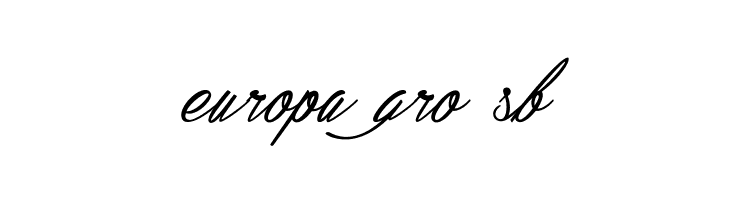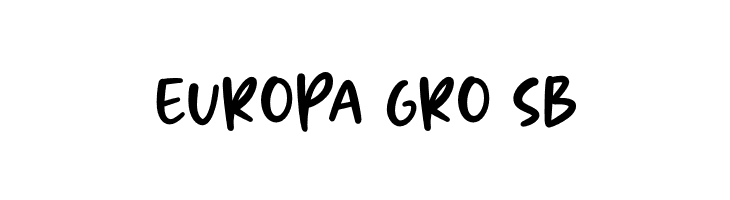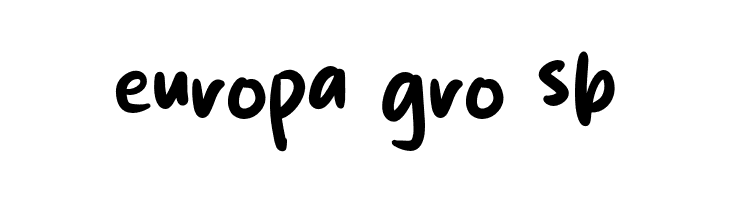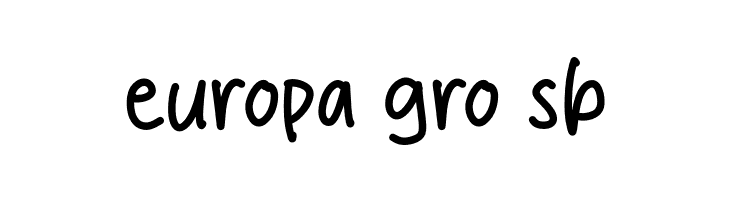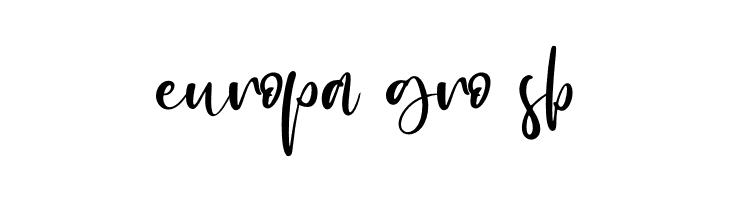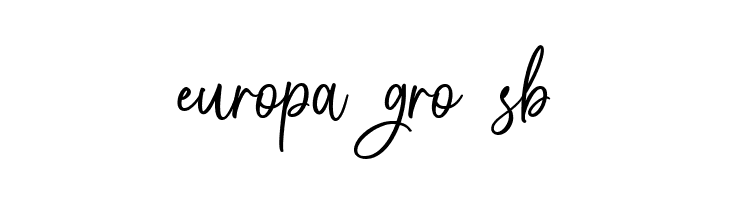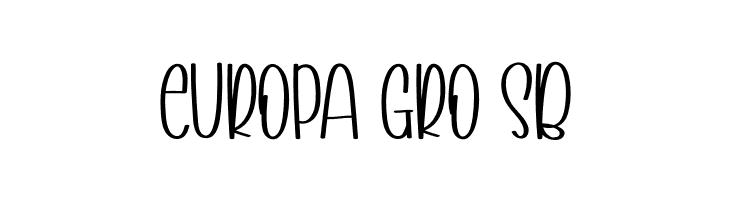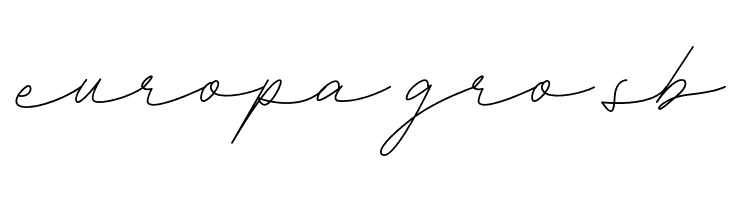
Elegant, connected script font with a handwritten, calligraphic style.
Casual handwritten font with rounded, playful strokes.
Casual handwritten script with tall, flowing strokes and variable thickness.
Elegant, thin, and highly slanted handwritten script.
Loose, playful handwritten script with tall, expressive forms.
Elegant handwritten script with tall, flowing characters.
Tall, playful handwritten font with rounded strokes.
Light, flowing handwritten script with a casual, elegant style.